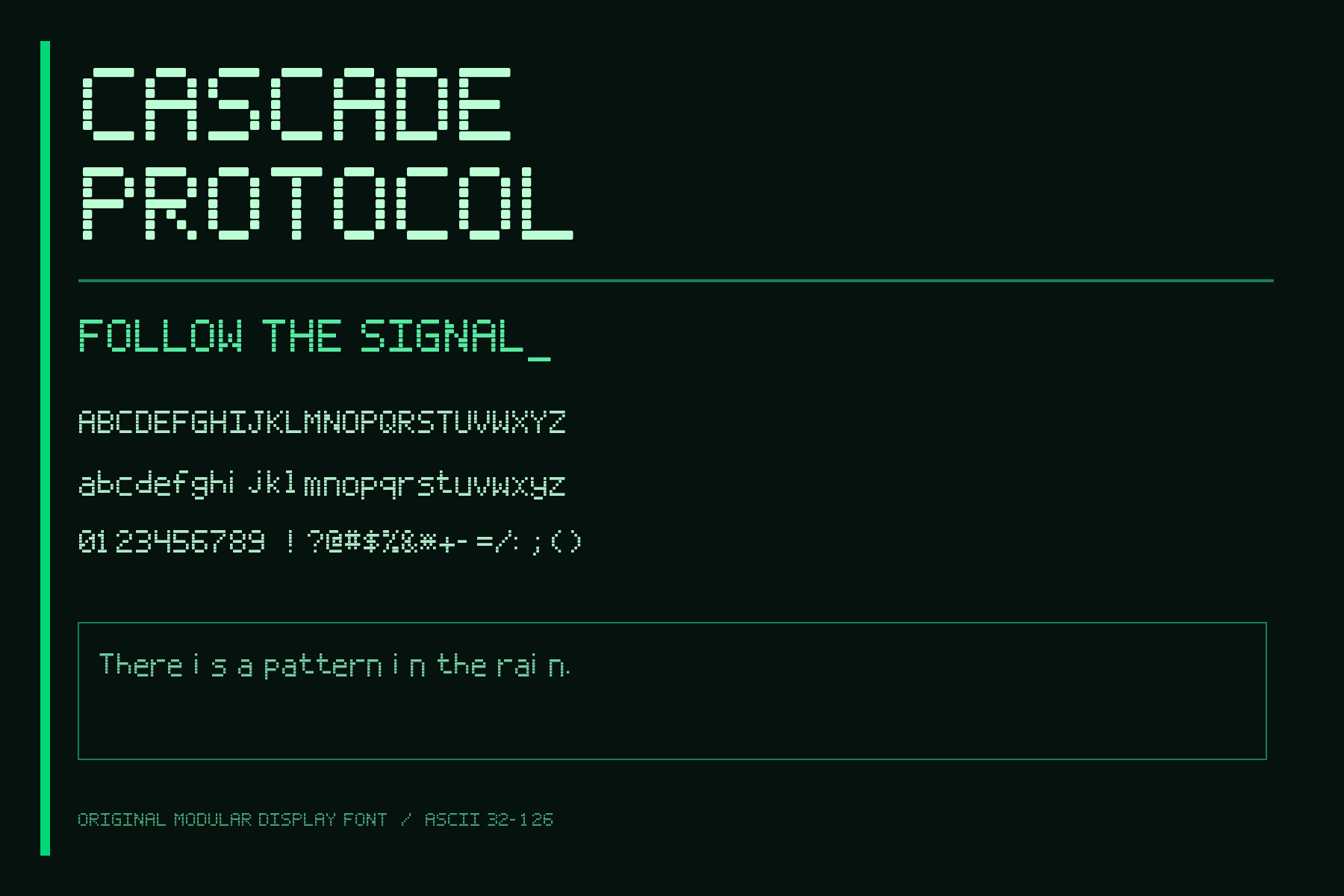
Cascade Protocol
Cascade Protocol, an original font inspired by The Matrix: tall letters built from segmented strokes, like code appearing on a dark terminal.